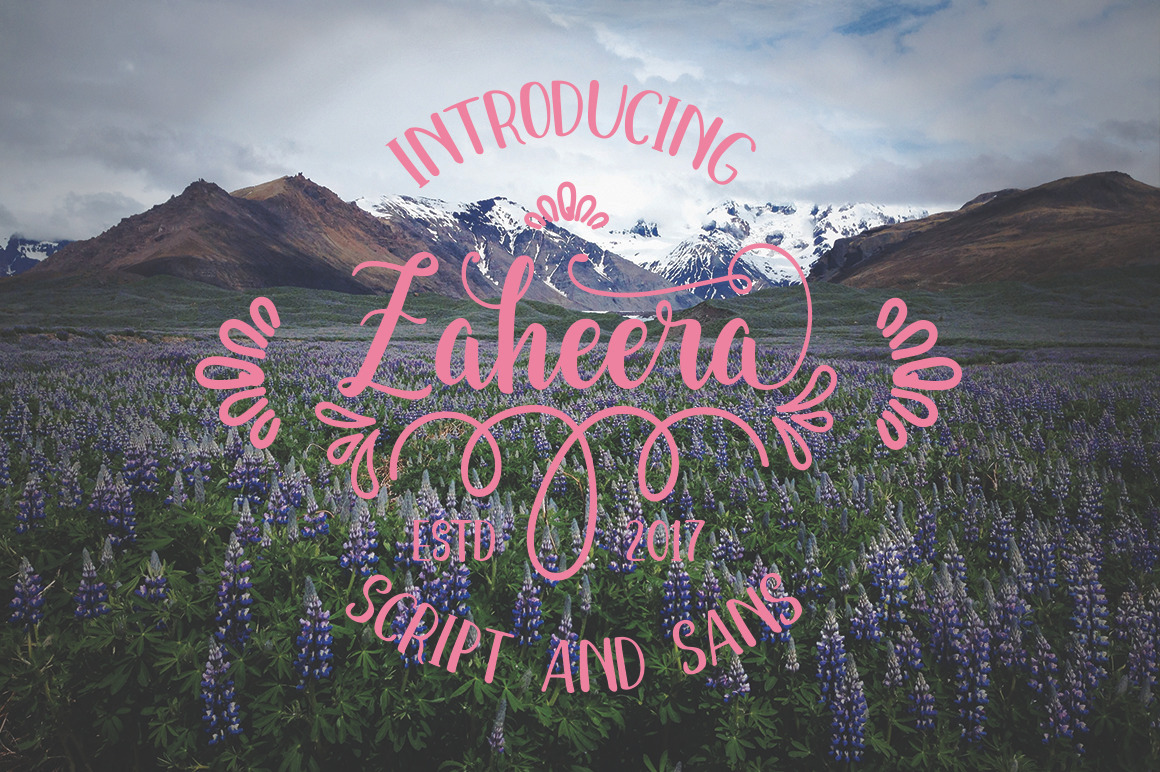
Zaheera Script & Sans Capital is a font handmade using Tombow Brush Pen. These two font script and sans is a great combination for any product and bussines. Zaheera comfortable for feminime design, modern design, photography, wedding, t-shirt, branding design and many more.
Zaheera Script Featured With :
- Basic Character and Multilingual Character
- Stylistic Sets - Contextual Alternates
- Swash Alternates
- Standart Ligatures and Discretionary Ligatures
- Titling Alternates
- Bonus Ornaments
- Initial and Terminal Forms
Zaheera Sans Featured With :
- Small Caps
- Numeral